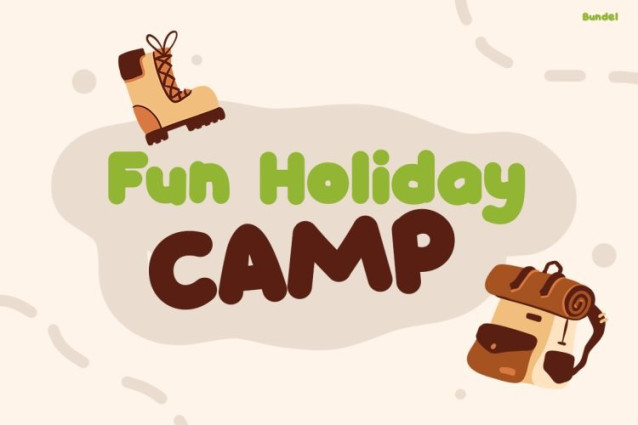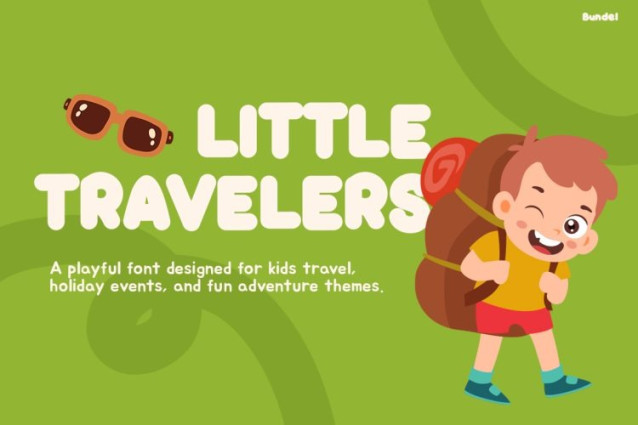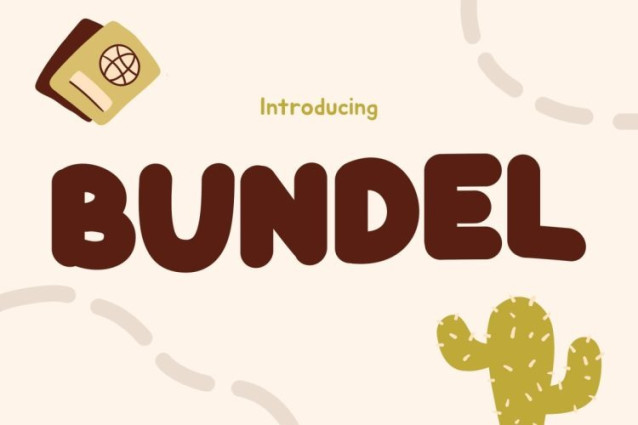
Bundel Font is a cheerful and playful display typeface designed to capture the excitement of travel, adventure, and childhood fun. Its bold rounded shapes, soft edges, and lively character make every word feel energetic and friendly. Because of its chunky and balanced letterforms, the font stands out clearly while remaining easy to read. As a result, it delivers a strong visual impact without losing its playful charm. Moreover, the travel-inspired aesthetic adds a sense of movement and exploration, making it perfect for bright, story-driven designs.
BUNDEL combines a fun, bold style with smooth curves to create a highly engaging visual experience. Each character is crafted to feel approachable, making the font suitable for playful and creative layouts. Therefore, it works well for designs that aim to attract attention while staying friendly and readable.
In addition, this font performs beautifully across various creative projects. For example, it is perfect for kids travel themes, vacation posters, educational content, and branding. Furthermore, its lively and colorful personality makes it ideal for social media graphics, packaging, and promotional materials. Because of its versatility, BUNDEL adapts easily to both print and digital use while maintaining a strong, consistent look.